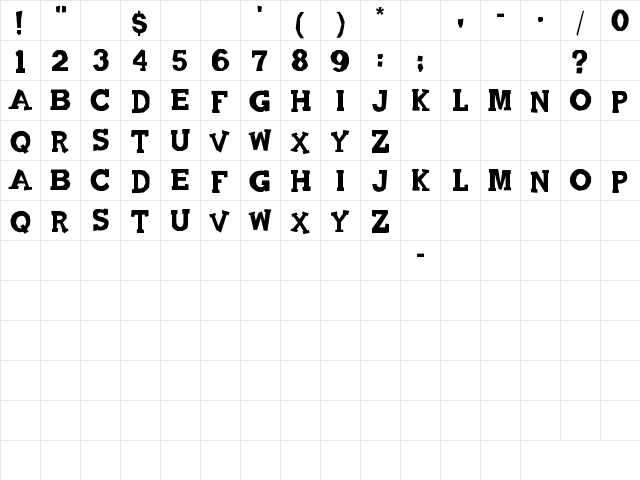
Quadrophonic Regular
Design Context for Quadrophonic
Quadrophonic is a composed and adaptable typeface that performs quietly and consistently across a wide range of design contexts.
Pro Tip: Use Quadrophonic in both headline and body roles to test its range before committing to a single application.